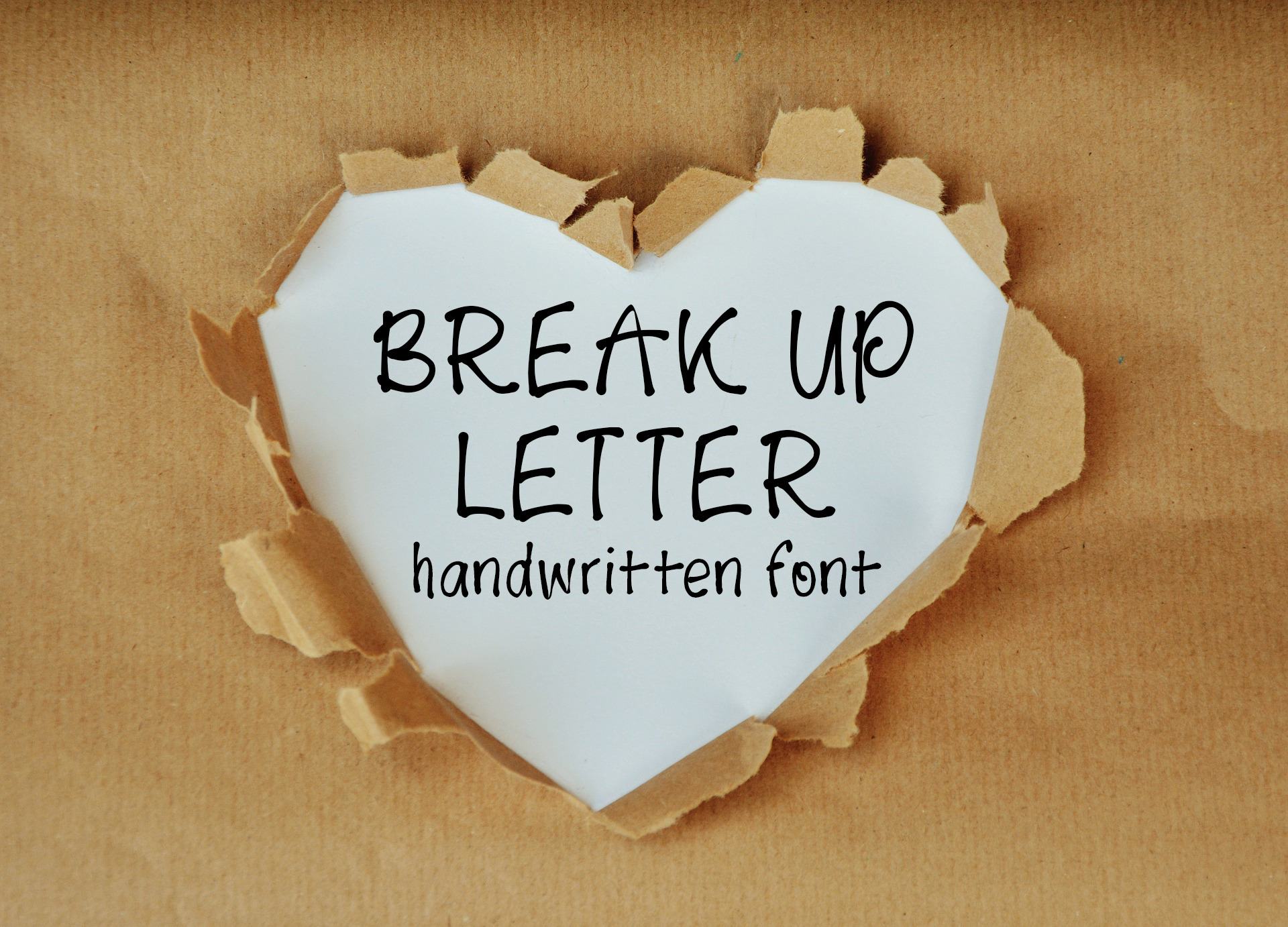
Break Up Letter font
Break Up Letter is a hand-lettered font, great for adding a quirky, handmade feel to your projects. This font contains uppercase, lowercase, numbers, and punctuation.